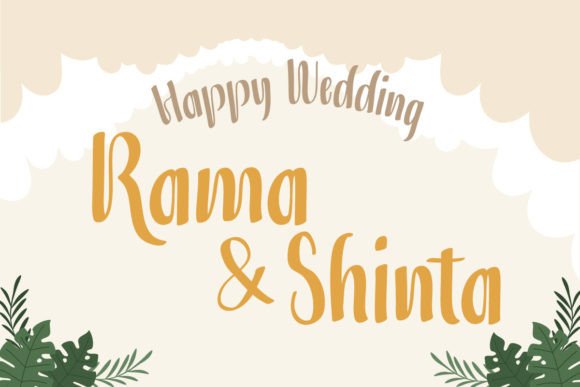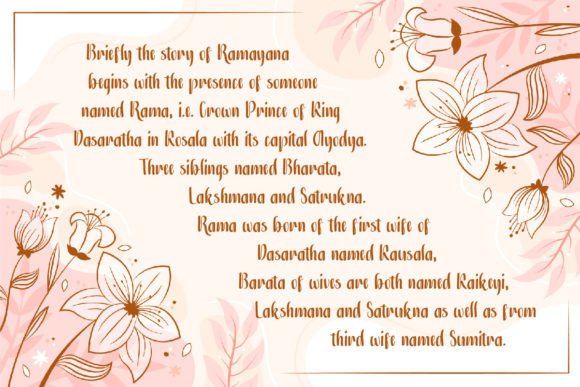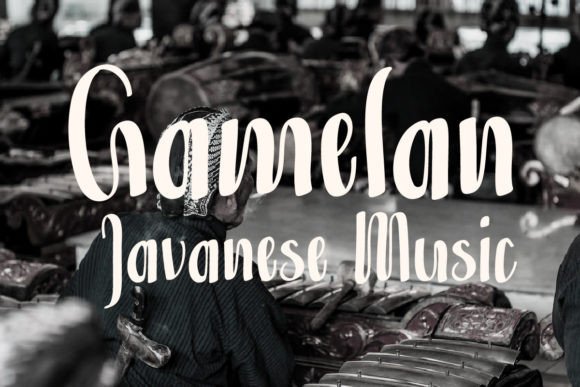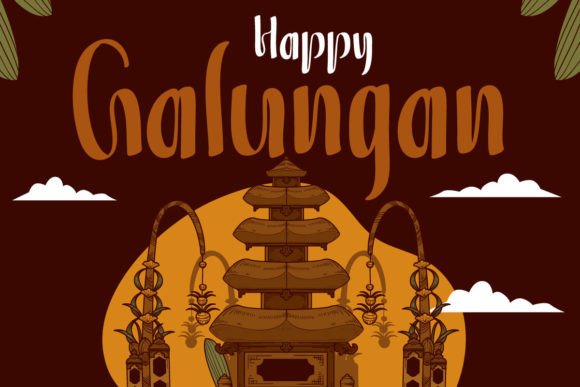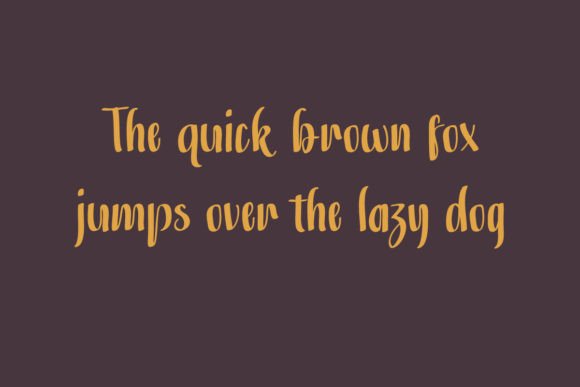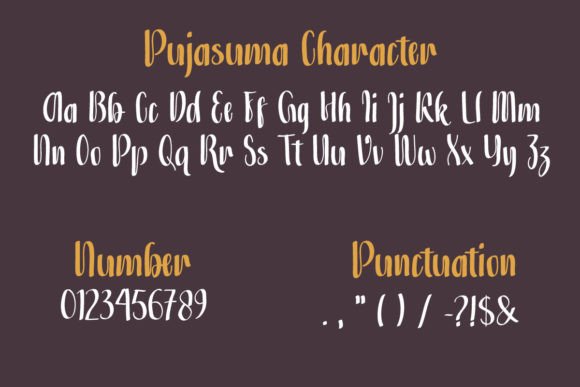
Introduction to Pujasuma Font
Pujasuma is a script font that is the epitome of elegance and sophistication, with its flowing lines and intricate details.
This font pays homage to the beauty of traditional Javanese calligraphy, while also offering a modern twist Perfect for adding a touch of culture and refinement to any project, from branding to invitations.